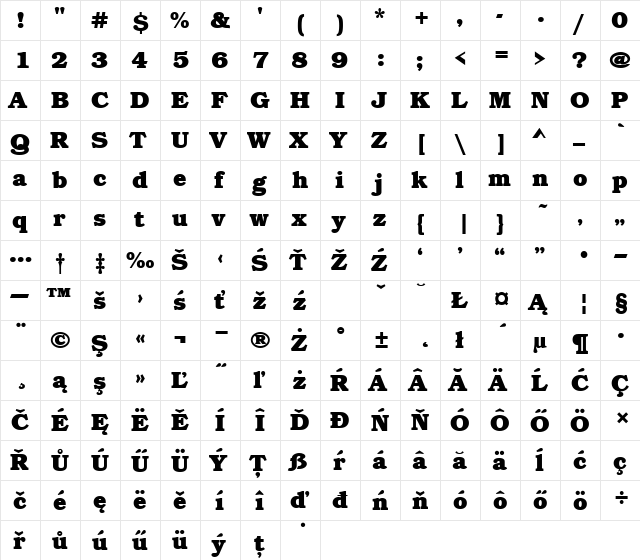
BookmItcTEEBol Regular Font Preview
BookmItcTEEBol Regular
Design Context for BookmItcTEEBol Typeface
BookmItcTEEBol is a composed and adaptable typeface that performs quietly and consistently across a wide range of design contexts.